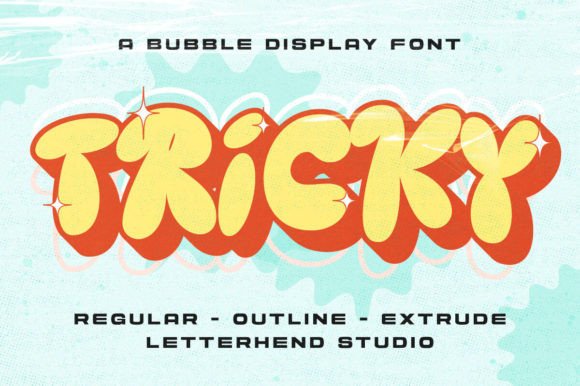
Looking to add a touch of personality and fun to your designs? Look no further than Tricky Font - the best font for creative CVs and so much more! Created by the talented team at letterhend, this font is guaranteed to make your designs stand out from the crowd.
Tricky Font is not your average font. Its unique display style and graffiti street art inspiration make it perfect for those who want to inject a sense of fun and whimsy into their work. With its rounded, bubbly letters, this font exudes a friendly and approachable vibe, instantly drawing people in and capturing their attention.
Whether you're designing a logo, poster, or any other creative project, Tricky Font is the perfect choice to add that extra dash of personality. Imagine your logo popping with vibrant colors and a playful font that reflects the essence of your brand. It's time to let your creativity shine!
But Tricky Font isn't just about looks. It's also incredibly versatile and easy to use. Its clean and clear letterforms ensure readability, while its cartoon-like appearance adds a touch of humor and playfulness. This font truly has it all - style, substance, and a whole lot of character.
The possibilities with Tricky Font are endless. Let your imagination run wild and create designs that leave a lasting impression. Stand out from the competition and make a statement with a font that speaks volumes about your creativity and individuality.